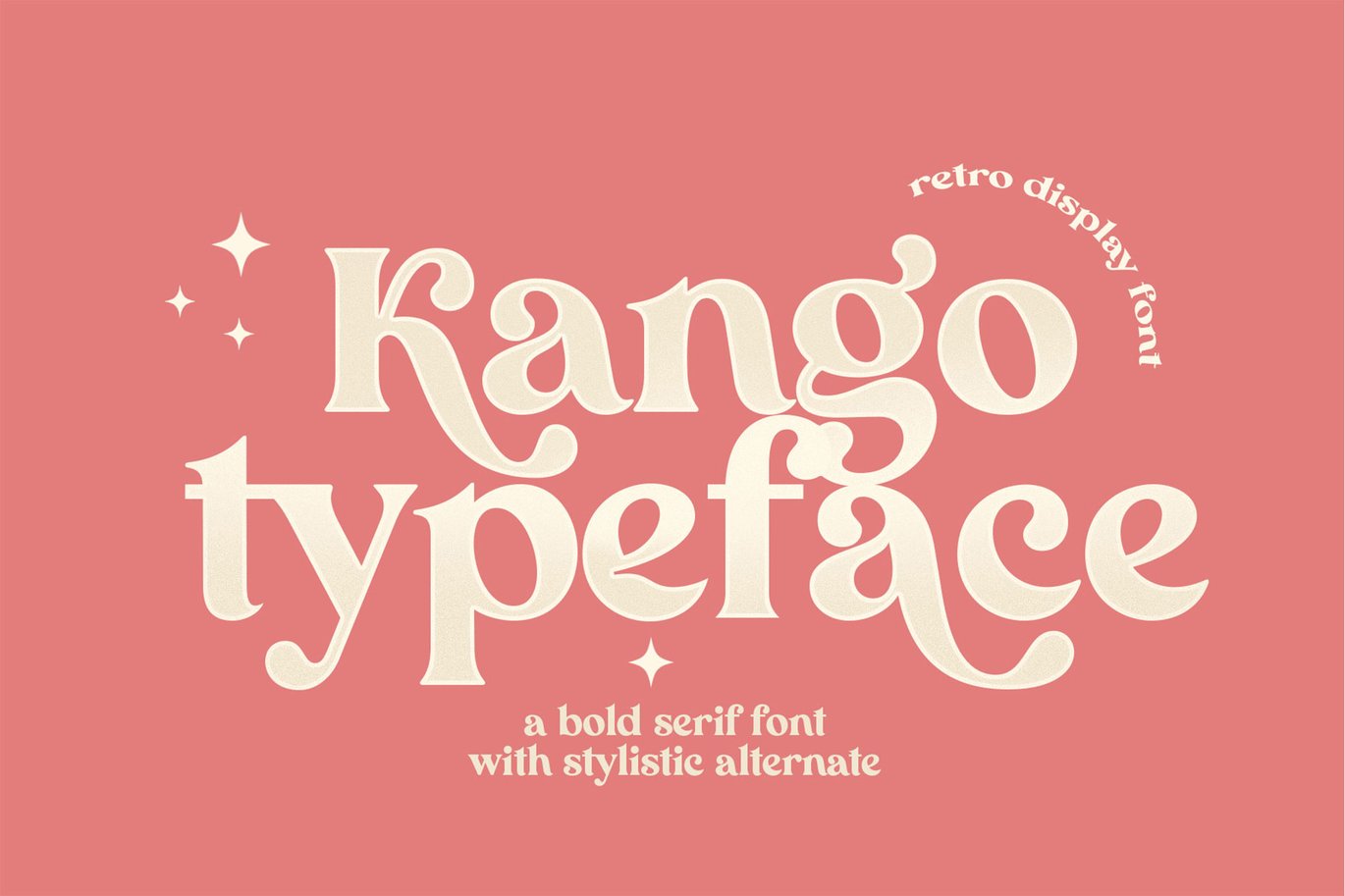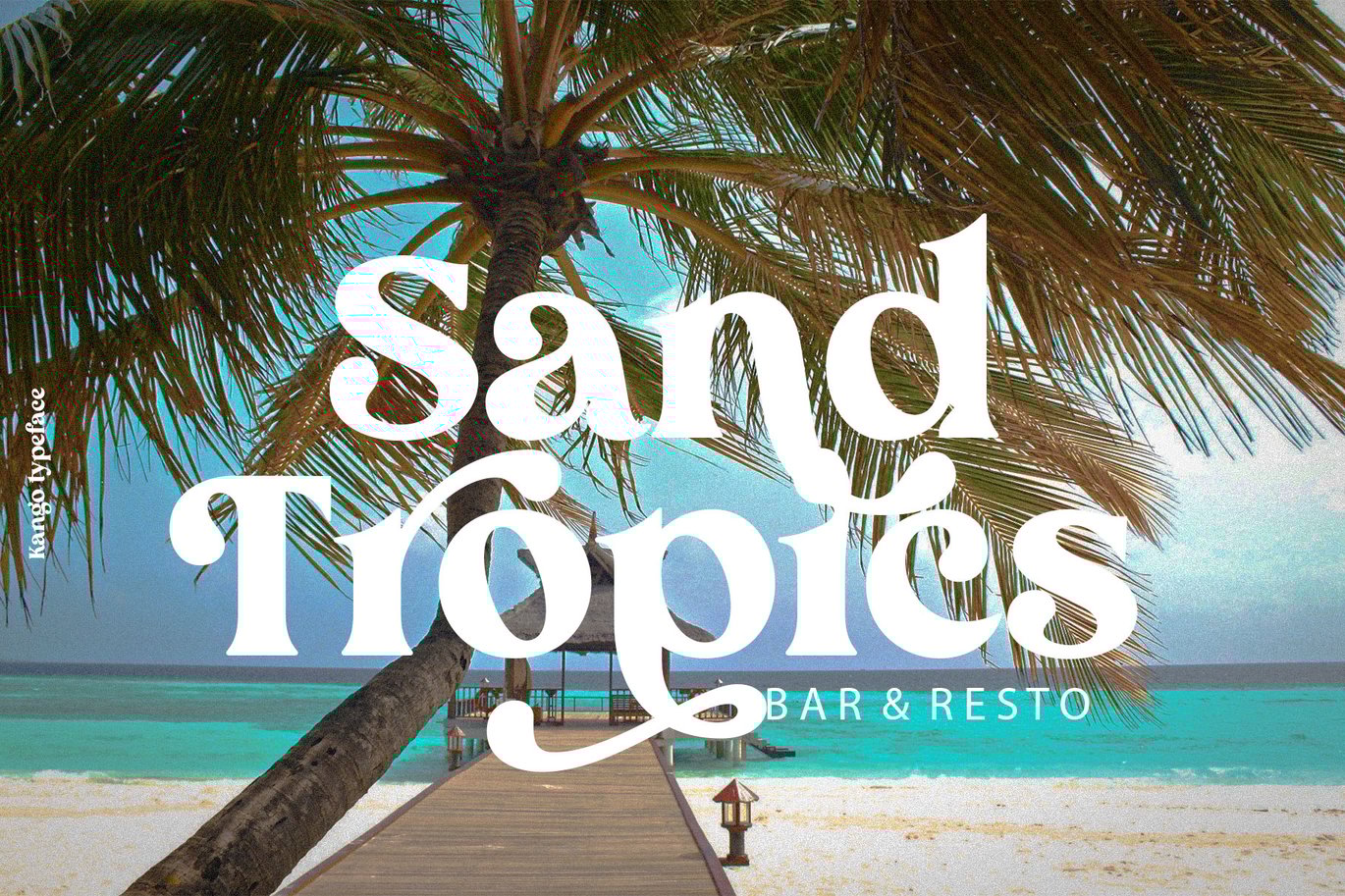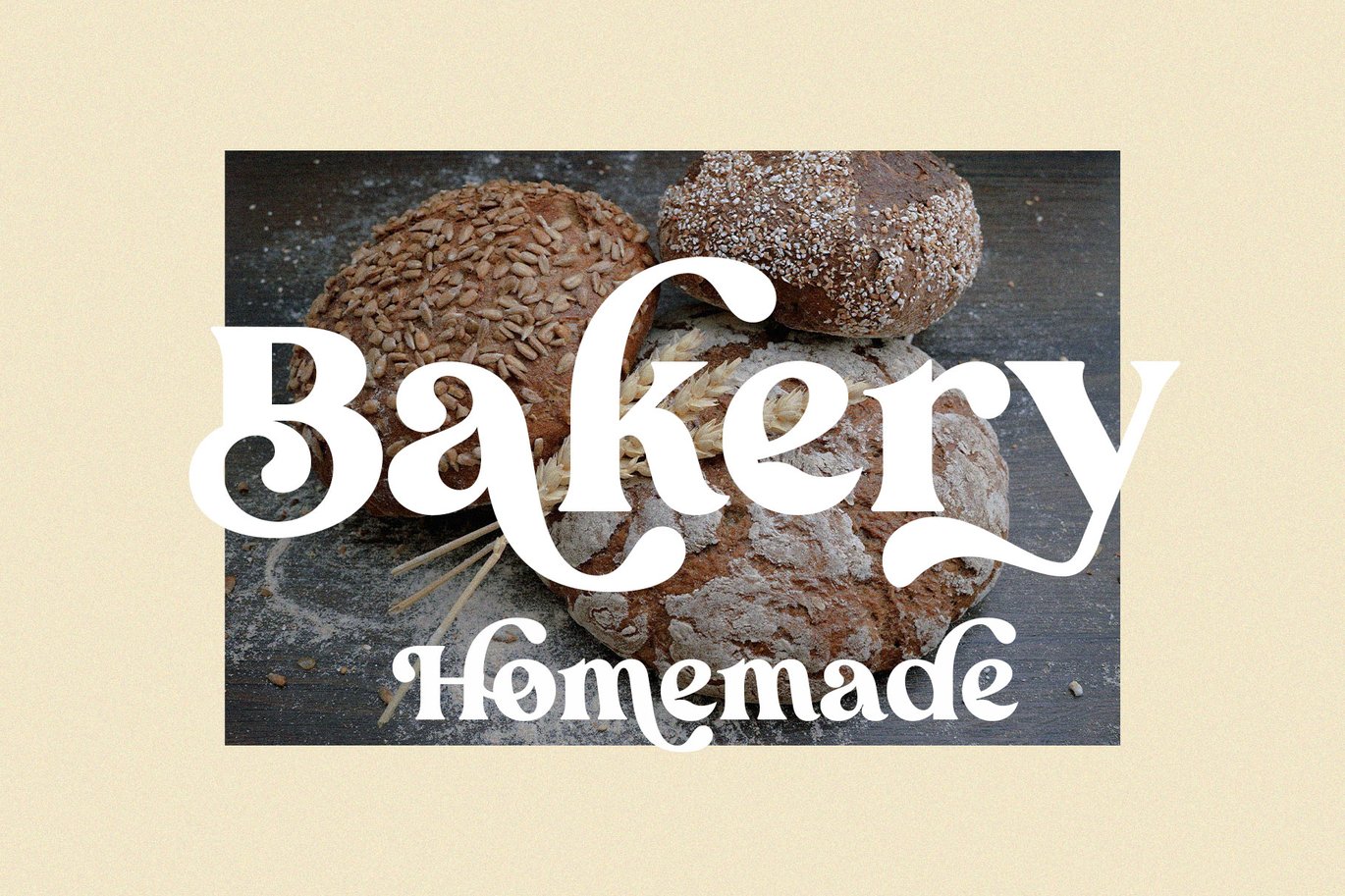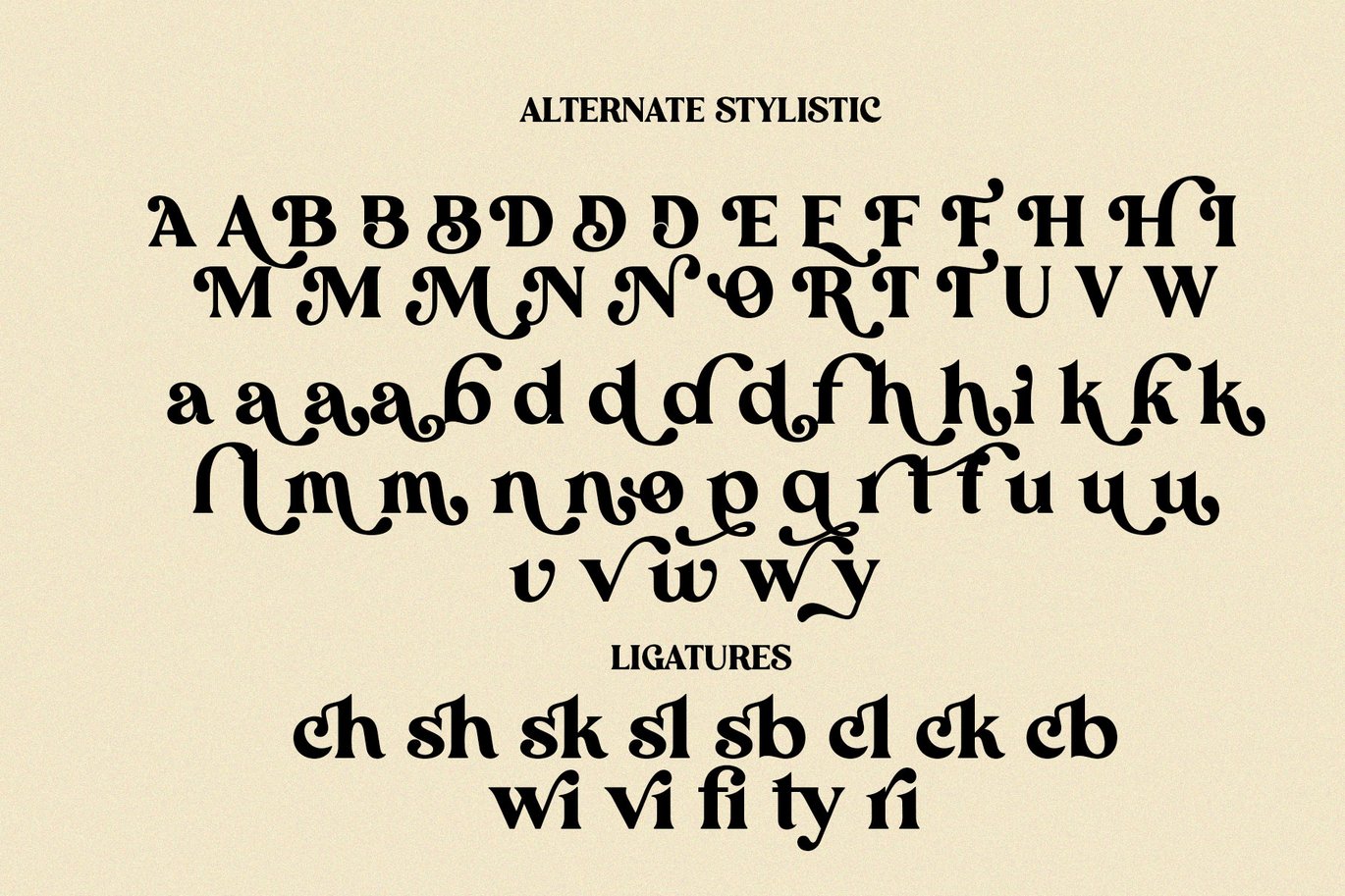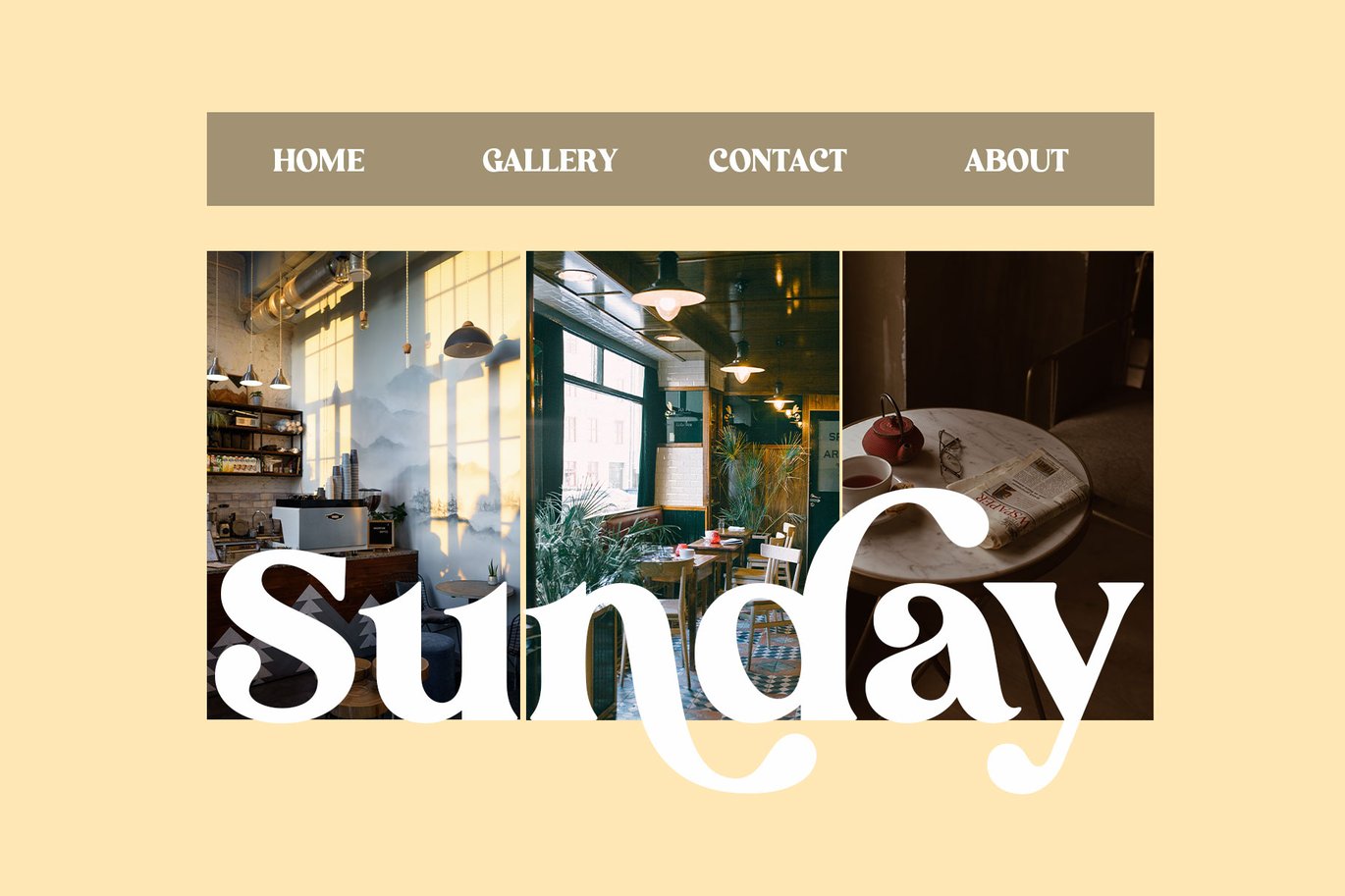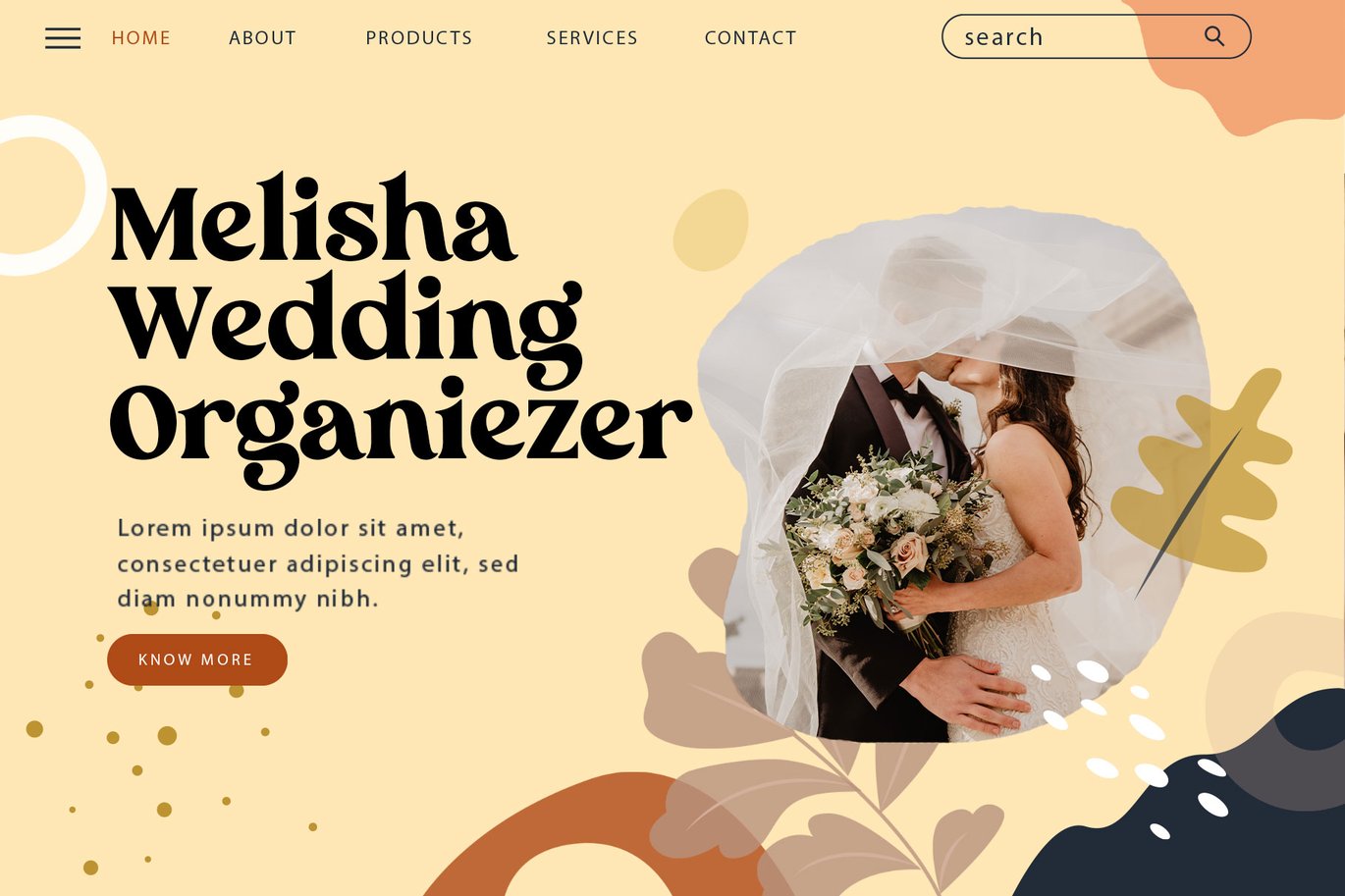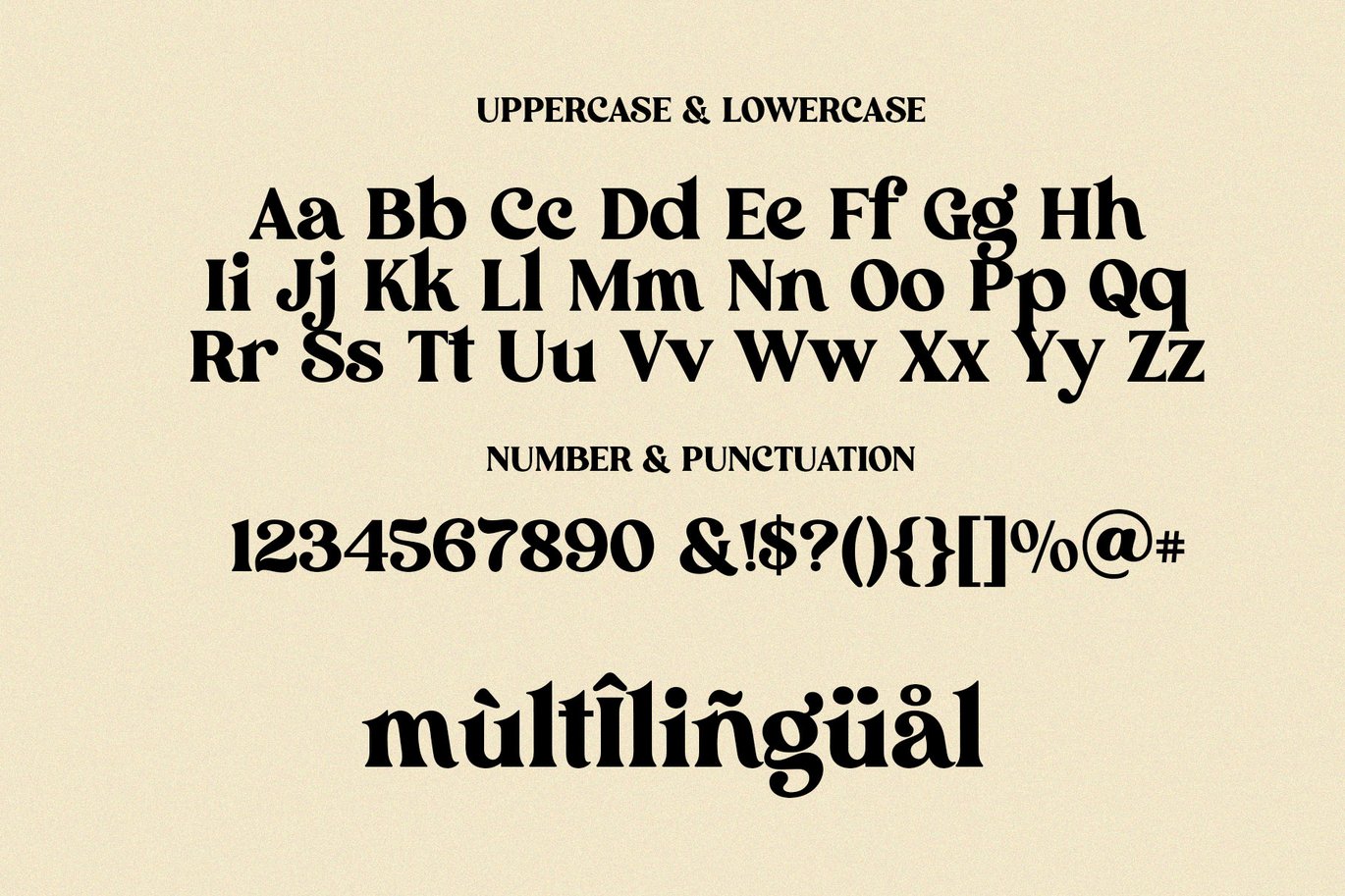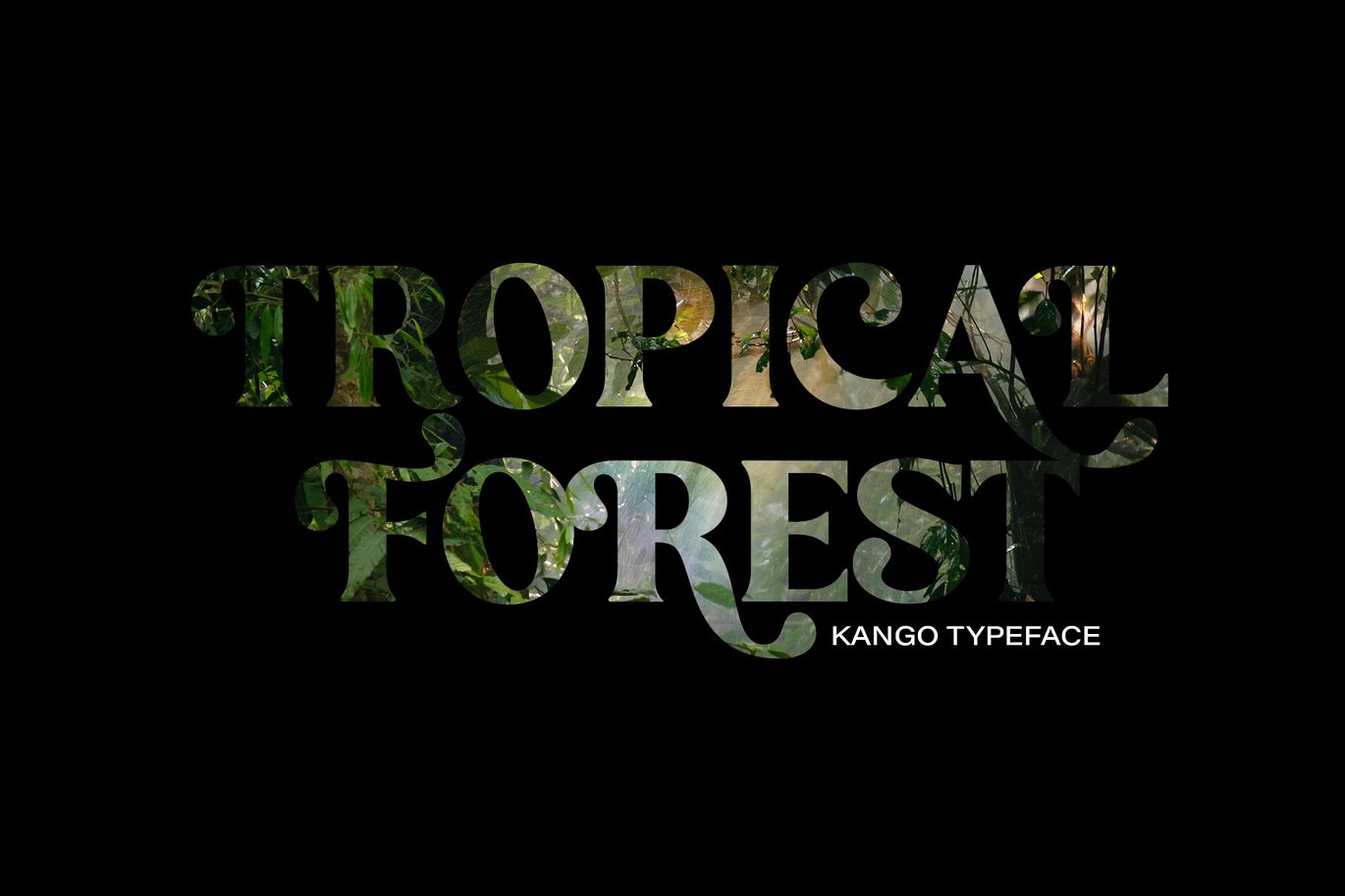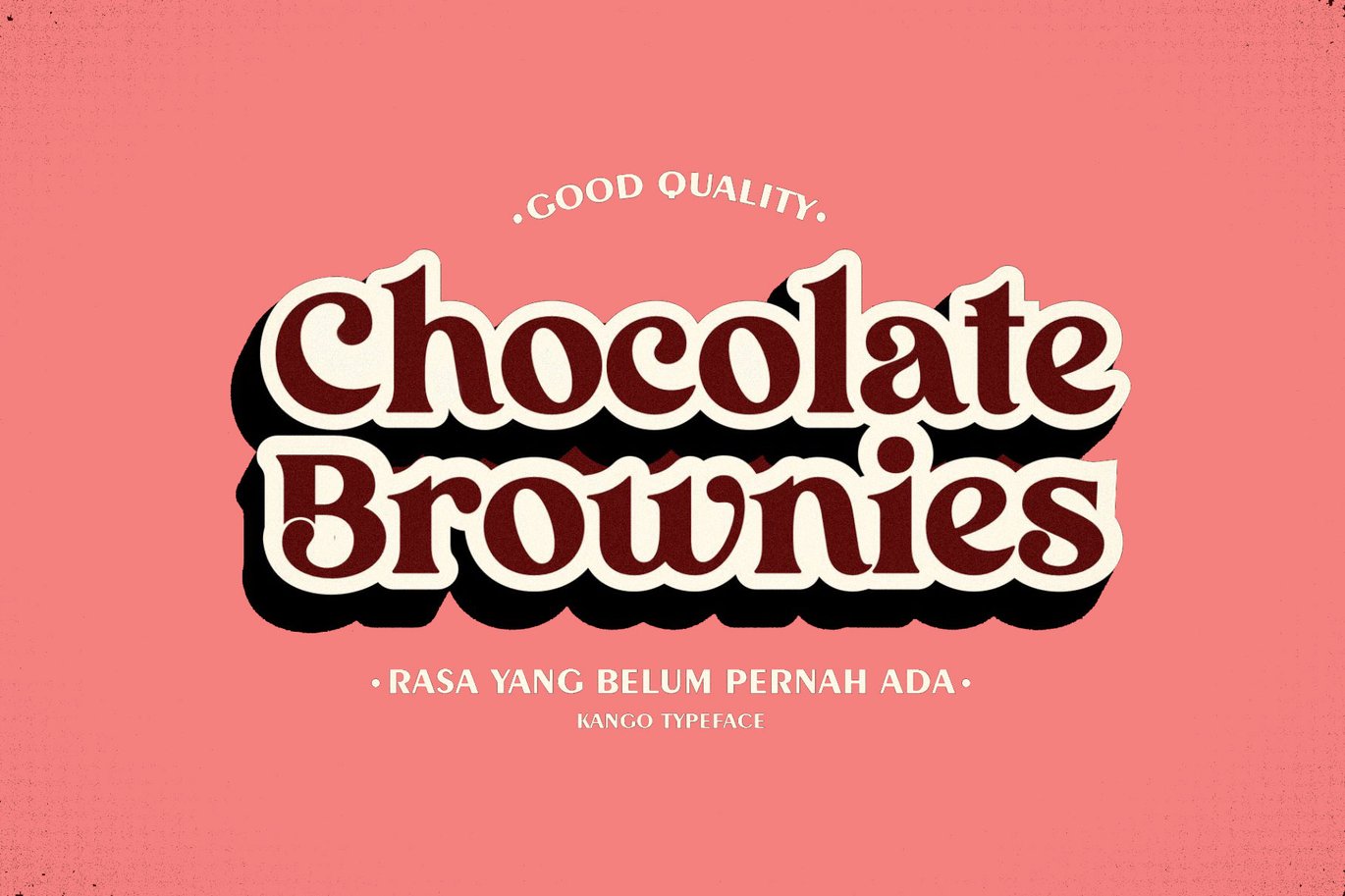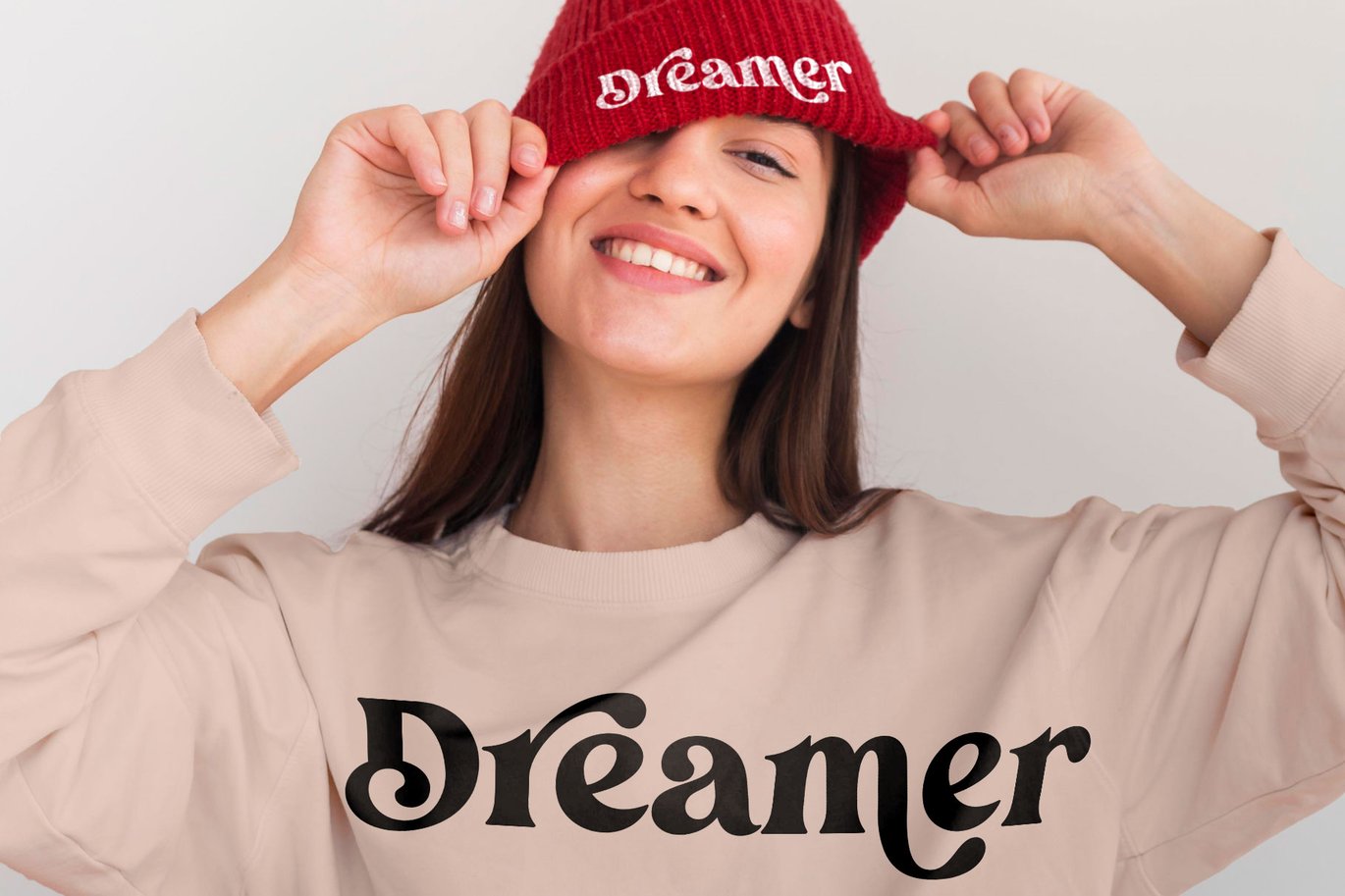
Kango Retro Font
Kango is a special modern style font. Made with accurate accuracy with beautiful curves. With alternative characters and ligatures that make your work very special. It is perfect for branding design, logos, greeting cards, title packaging. and other designs. Immediately use our fonts to make your work even more amazing.
Megan DIsplay is also included full set of:
uppercase and lowercase letters multilingual support numerals punctuation Stylistic set Ligature Characters